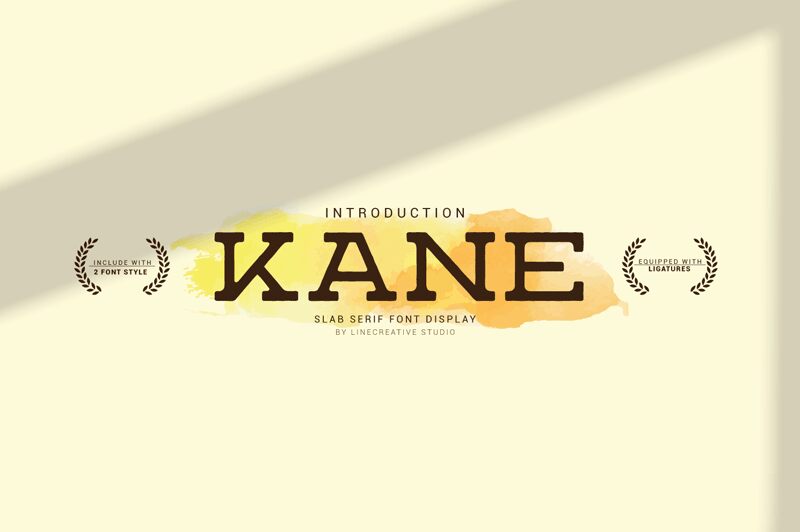
Kane is a slab-serif font that gives the impression of being clean and very elegant. This font supports a supporting language: Latin Western Europe.
and also equipped with ligature,So it gives a design without limits